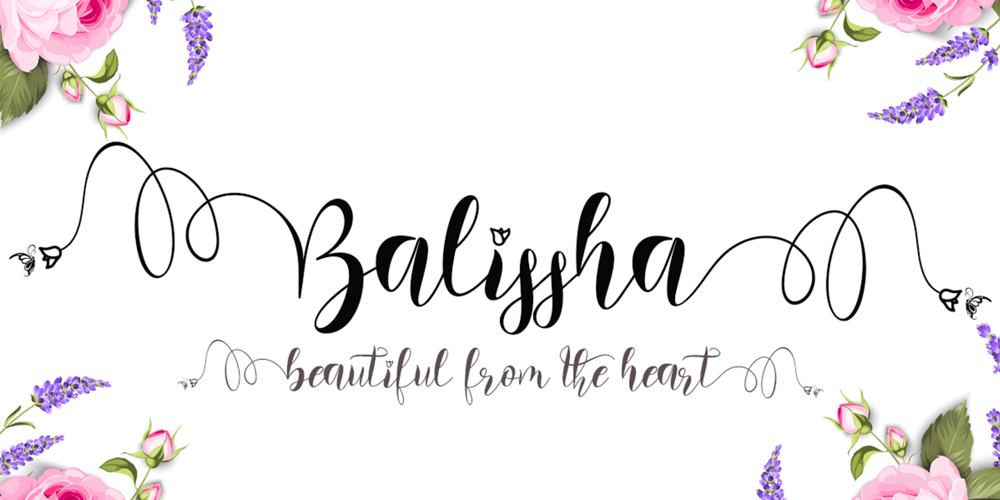
Balissha Font Family was designed by Isroni Yoga Prasetya and published by Yoga Letter. Balissha contains 1 styles and family package options. “Balissha” is a natural and elegant handwritten font with butterfly and flower decoration on the alternate letters. This font is perfect for mothers day, autumn, valentine, wedding, engagement, christmas, stickers and more. Equipped with uppercase letters, lowercase letters, numerals, punctuations, swash, titling, uppercase alternates, ligatures and multilingual support.